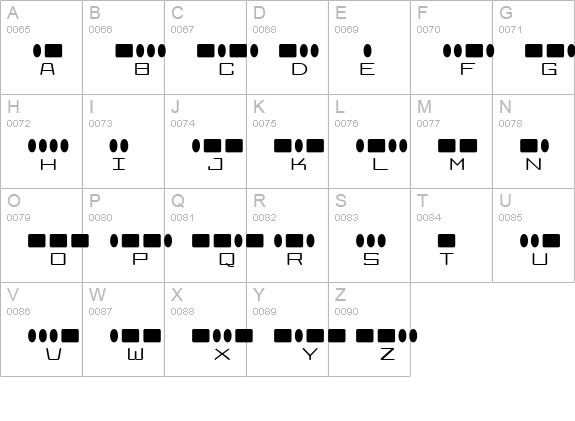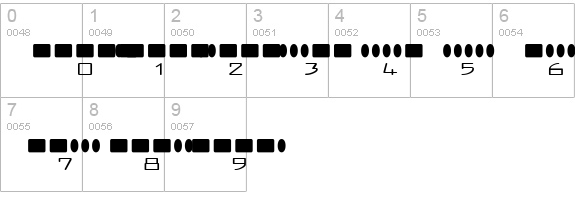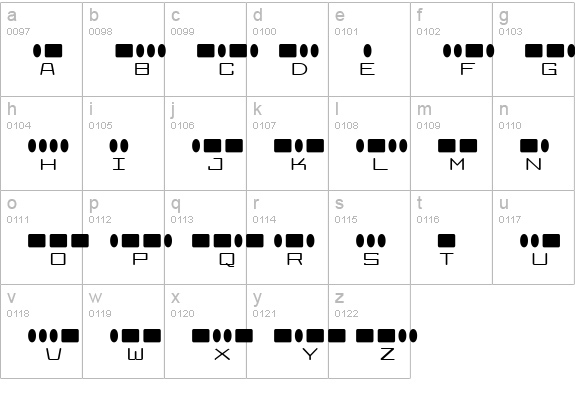
Radios in Motion Font Details
Radios in Motion font is a captivating and versatile typeface that exudes energy and movement. With its dynamic and fluid letterforms, this font captures the essence of radios in motion, making it the perfect choice for designs that require a sense of liveliness and vibrancy. The unique design of Radios in Motion font combines rounded edges with sharp angles, creating a visually striking contrast that adds a modern and contemporary touch to any project. Whether you're designing a poster, a logo, or a website, this font will effortlessly enhance your design and leave a lasting impression on your audience. One of the standout features of Radios in Motion font is its extensive character set. With a wide range of uppercase and lowercase letters, numbers, symbols, and punctuation marks, this font provides you with endless creative possibilities. Whether you're creating headlines or body text, Radios in Motion font offers exceptional legibility and readability, ensuring that your message is effectively communicated. The best part is that Radios in Motion font is available for free download at FontsMarket.com. This means that you can freely access this stunning typeface and incorporate it into your designs without any cost. It's a fantastic opportunity to add a touch of excitement and dynamism to your projects without breaking the bank. Don't miss out on the chance to elevate your designs with Radios in Motion font. Download it for free today at FontsMarket.com and unlock the potential of this captivating typeface.